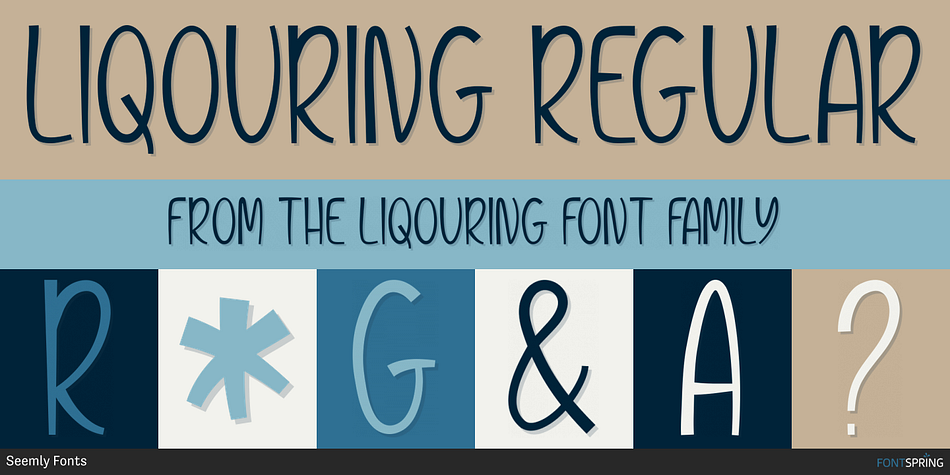
LIQOURING REGULAR
Designed by Md. Shohail Bhuiyan, Liqouring is a hand display font published by Seemly Fonts.
Introducing Liqouring!
Liqouring is a brand new modern display font. Liqouring is perfectly suited for stationery, logos, t-shirt, paper, print design, website header, photo frame, flyer, music cover, poster, image slider and much more.
Foundry Seemly Fonts
Designer Md. Shohail Bhuiyan